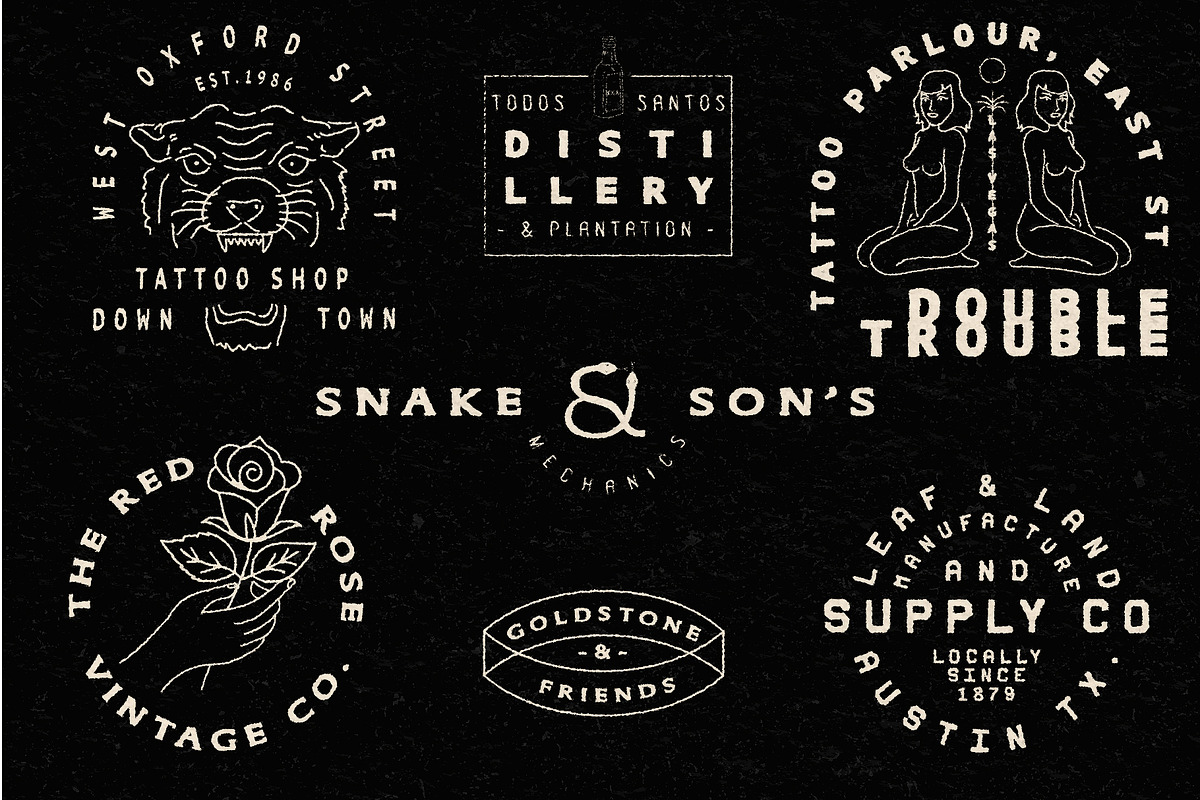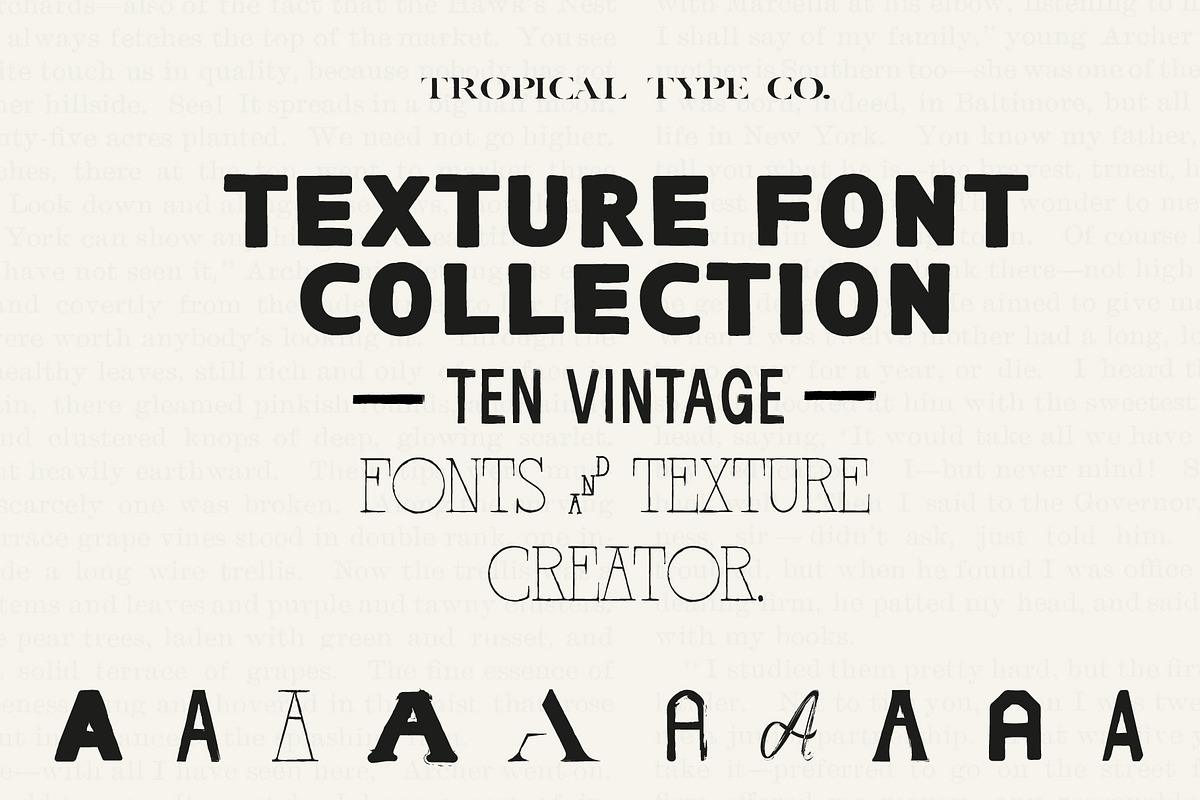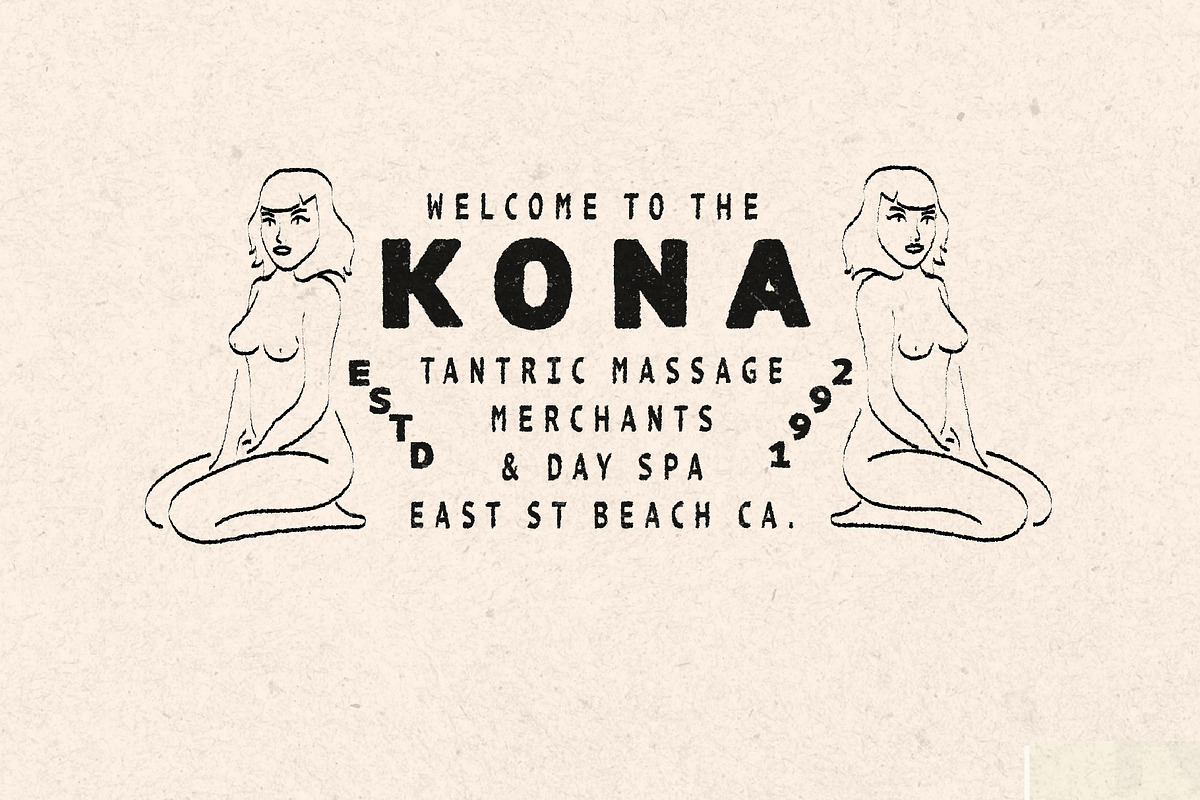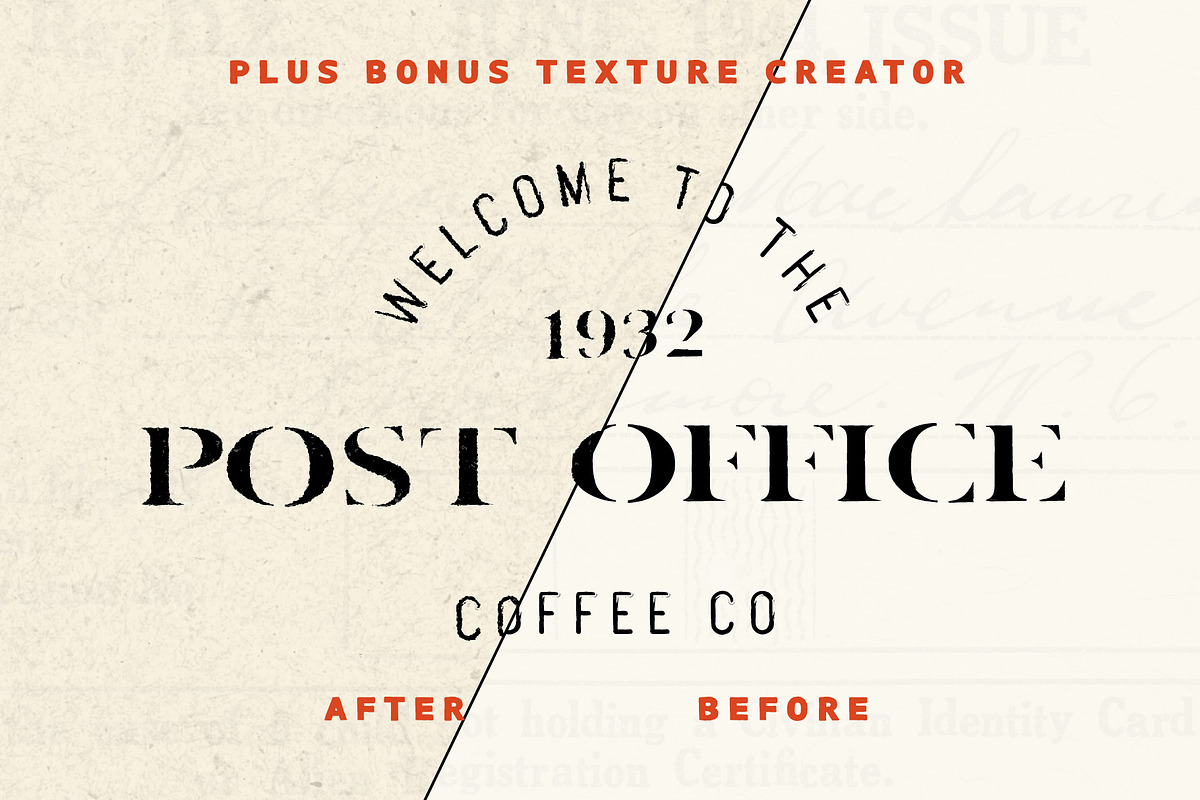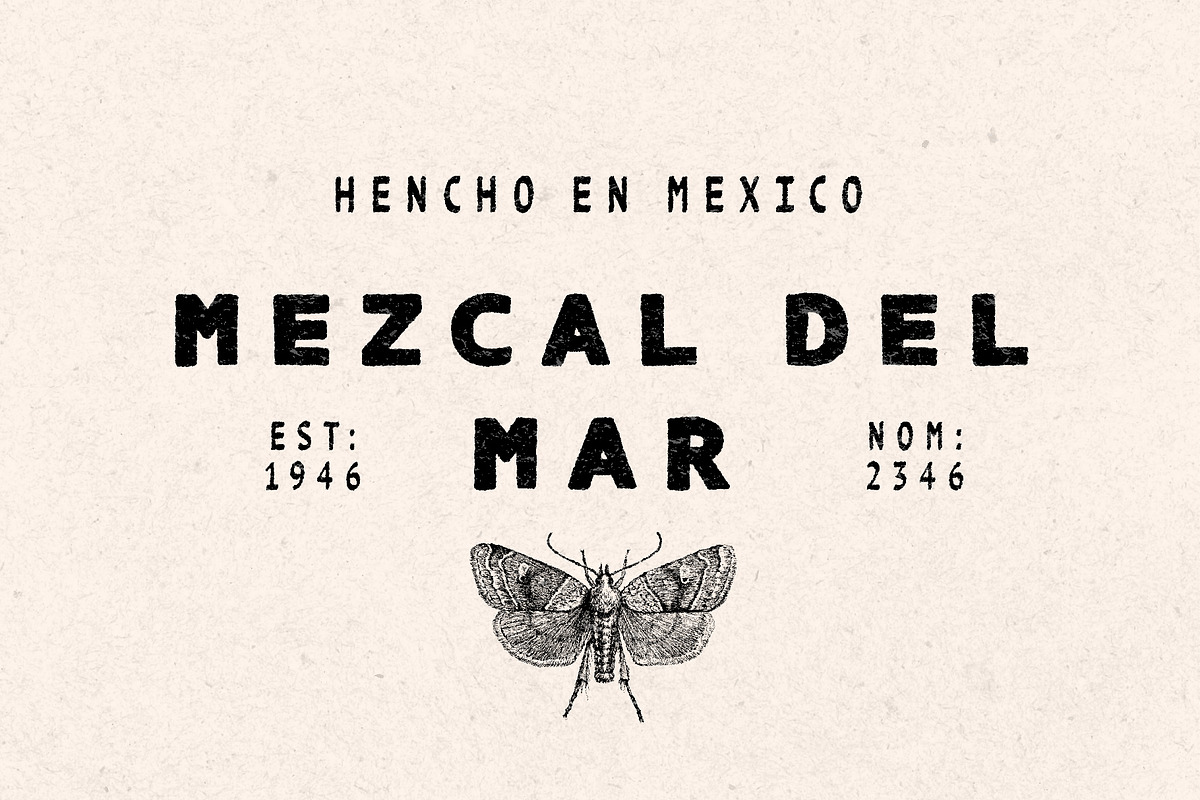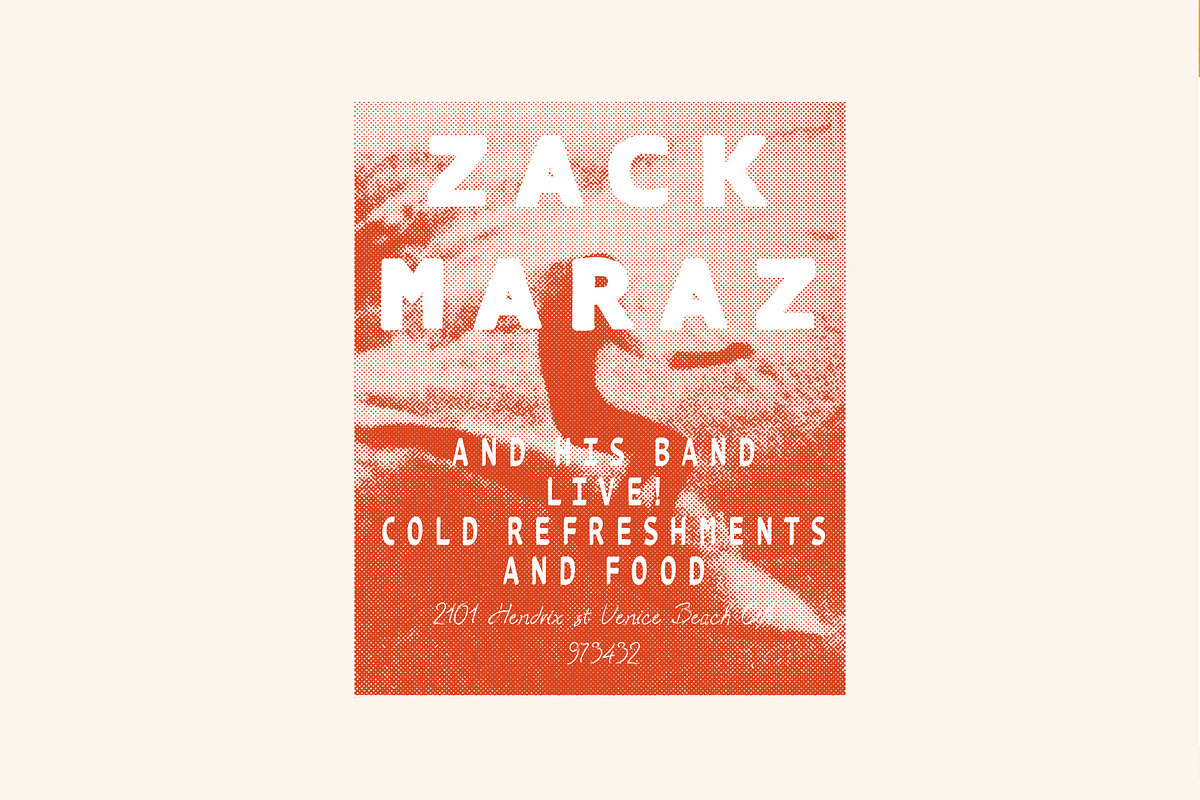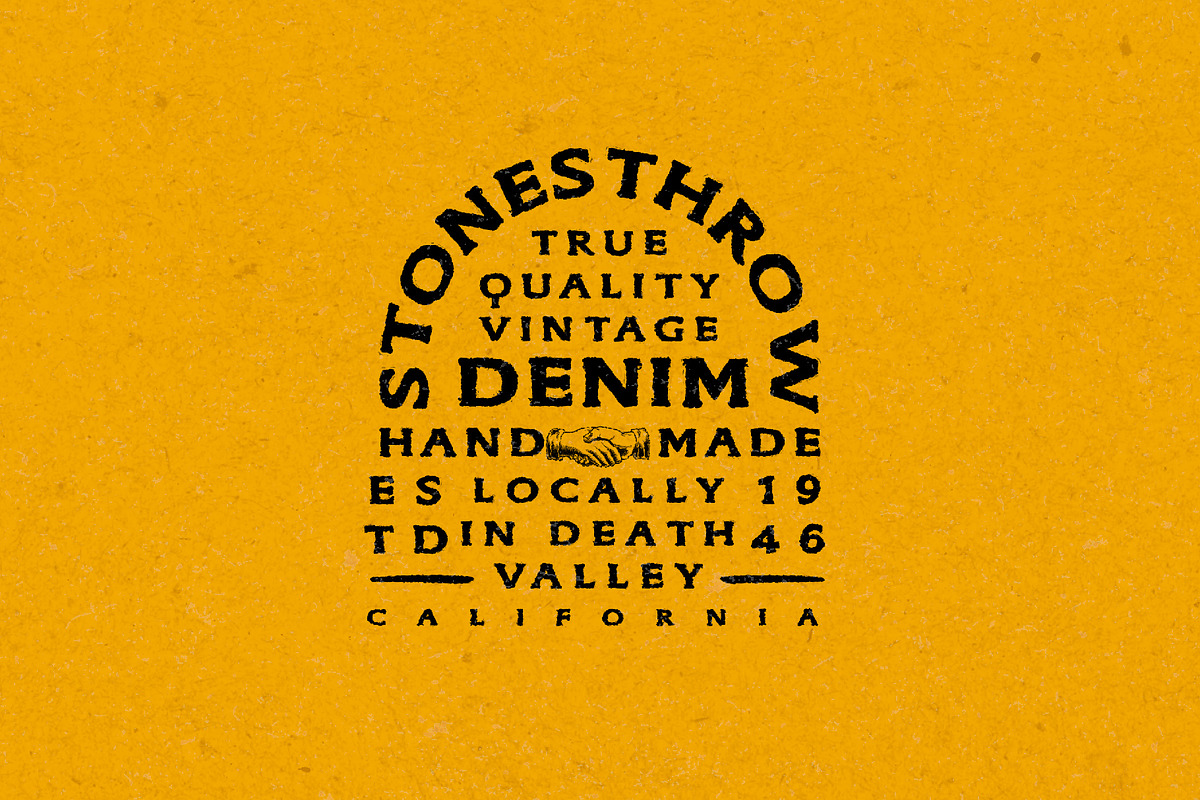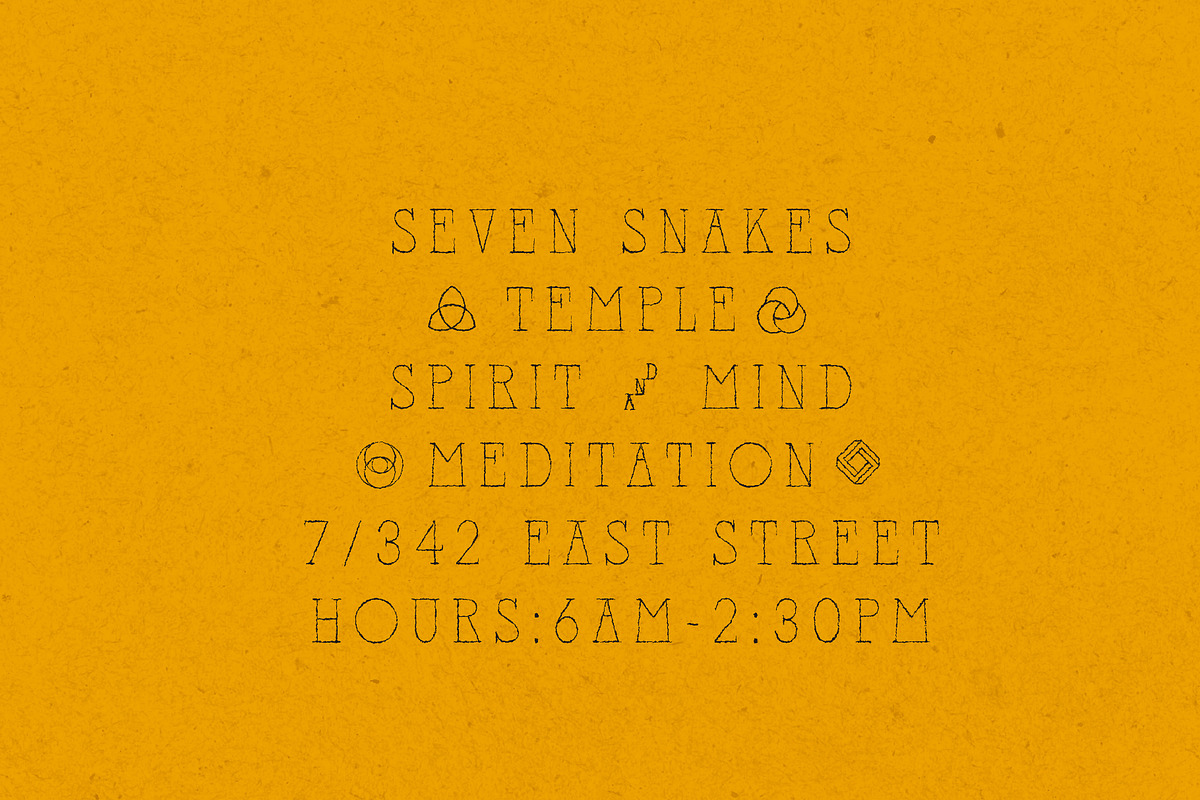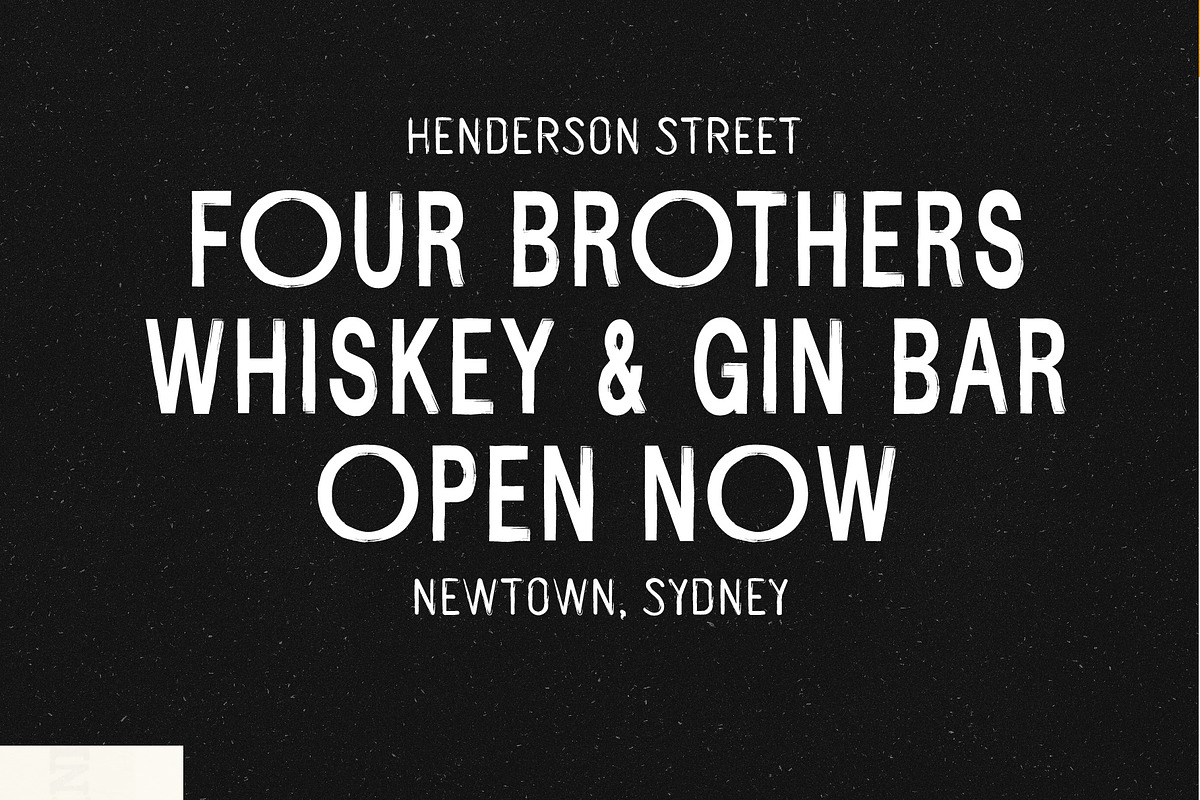
TEXTURE FONT COLLECTION (10 fonts)
The Texture Font Collection is 10 textured fonts plus a texture creator PSD file to add extra texture to your designs. Thats a lot of texture! Perfect for those vintage typography logos and posters. Just drop your design into the PSD file and add extra grit in seconds. Adjust the settings to customise the effects.
Fonts included: ( see slide 2)
- Grit Thick
- Sunliner Condensed
- Stamped Serif
- Deco Distressed
- Western Stencil
- Military Type
- Zodiac Caps
- Desert Thin
- Easter Block
- Rough Script